illitera — Typeface design with illiterates against illiteracy
by DHBW Ravensburg
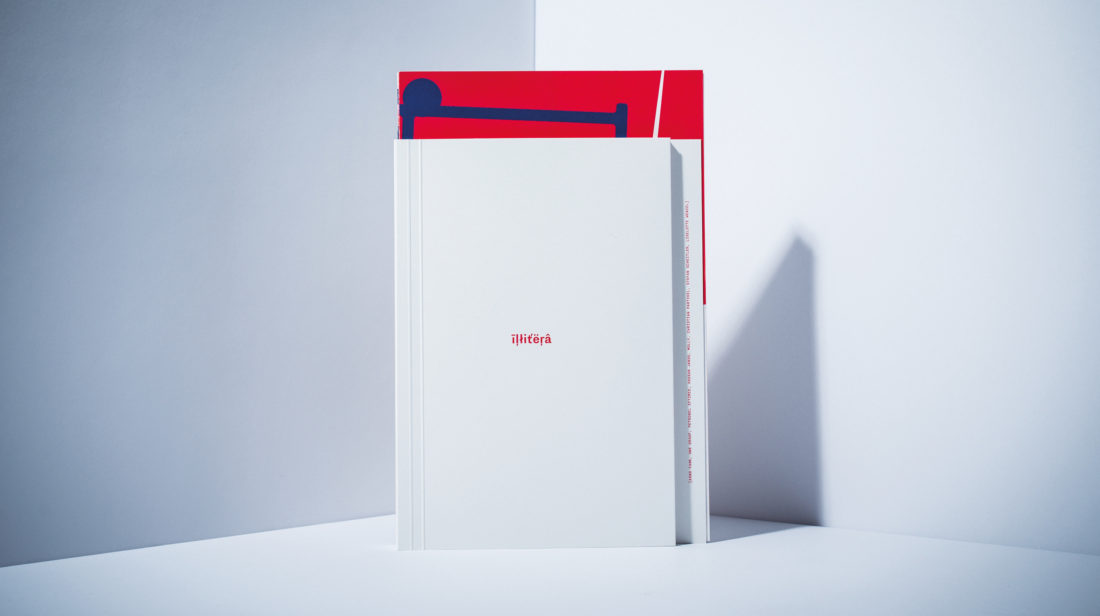
No other group of people is as far away from typography as illiterates. To bridge the gap between type design and illiteracy we interviewed experts from these fields. We found illiterates and conducted artistic typography workshops to create letters together in a playful way. By shaping beautiful letters the illiterates lose their fear of type and gain a sense of achievement. The touch point of the two worlds are typefaces. Initiated in workshops, developed by us and implemented in typographic posters by 56 designers worldwide — finally all brought together in this book.